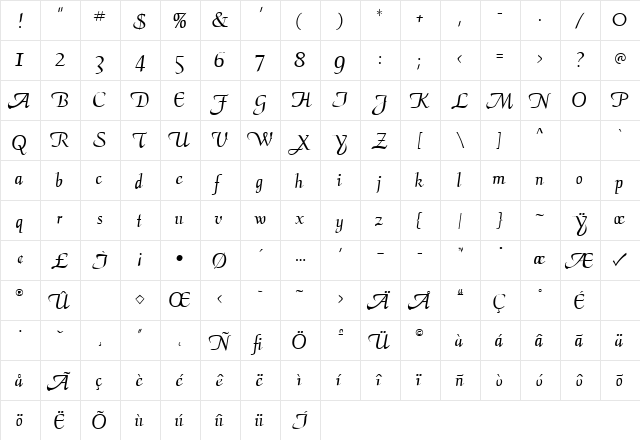
TGScript Regular
Design Context for TGScript Typeface
TGScript flows with the natural rhythm of handwritten lettering, making it ideal for designs that call for warmth and personal expression.
Font Pairing: Combine TGScript with a simple geometric sans for maximum contrast — the tension between flowing curves and clean structure is a classic typographic pairing.
Pro Tip: Use TGScript for short runs of text — names, titles, or taglines. Extended body copy in script faces tires the eye quickly.